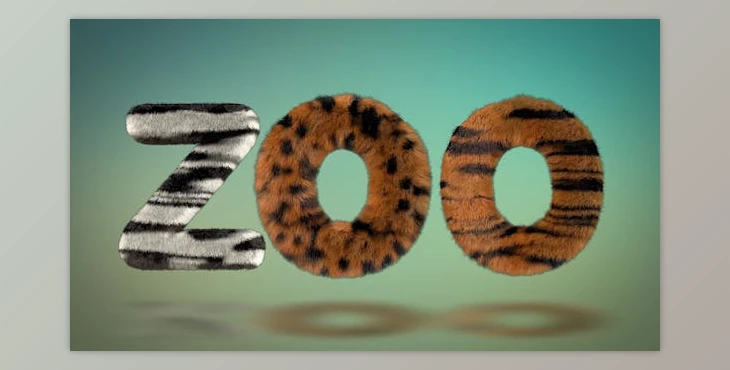
Hairy Zoo Text Typeface - AE Project 16720729:
Three textures this time: Tiger Leopard Zebra, and Tiger Zebra
Each character can be used in 4k resolution. From a control layer, you can change the colors of the Tiger or Leopard textures. You can change all characters at once, or each individual letter and number.